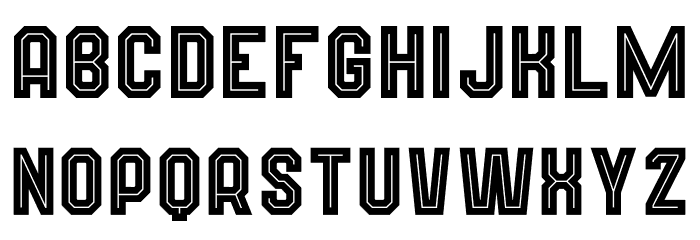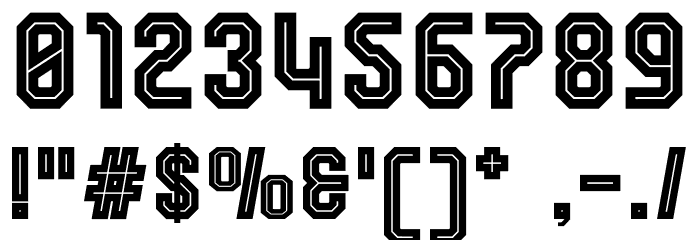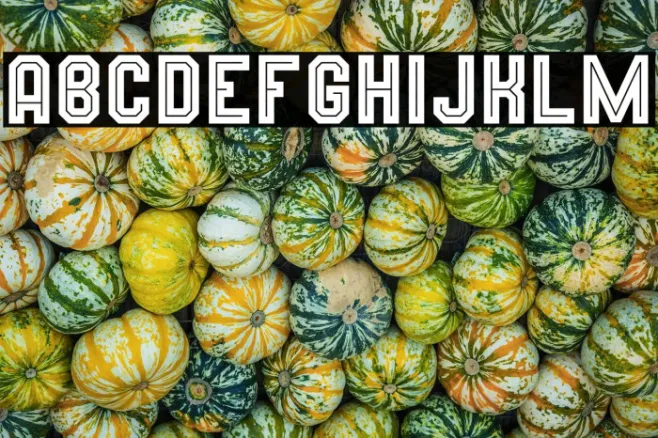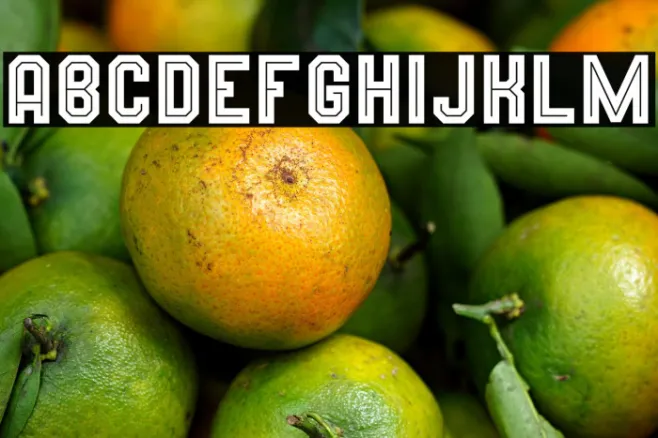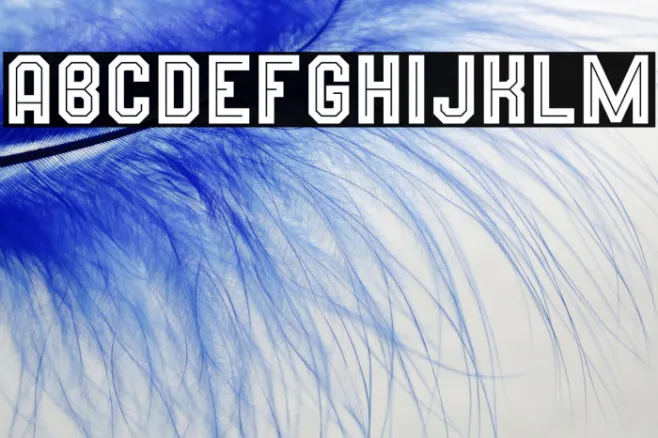
Wynford Line Font
This font features a bold, geometric design with a distinct outline style. Each character is constructed with clean, straight lines and sharp angles, giving it a modern and industrial feel. The uppercase letters are uniform in height, while the lowercase letters maintain a consistent style that complements the uppercase set. The numerals are equally bold and structured, making them highly legible. Special characters are included, maintaining the same geometric and outlined aesthetic. This font is ideal for projects that require a strong, impactful visual presence.
A bold, geometric outlined font with a modern industrial style.
- Font: Wynford Line
- Proposed Projects: Ideal for branding, posters, headlines, and any design needing a strong visual impact.